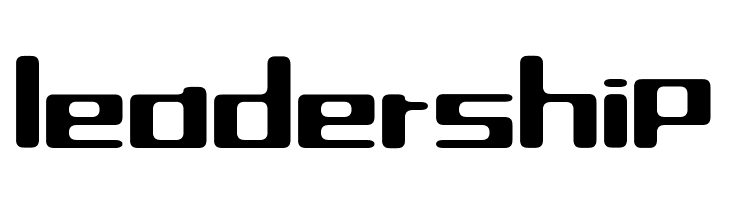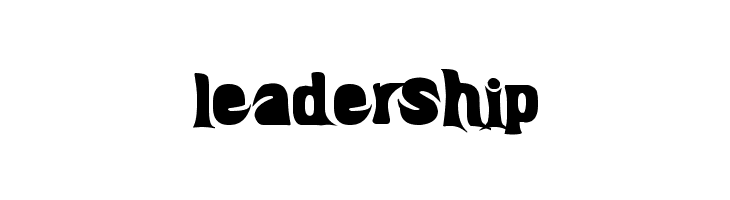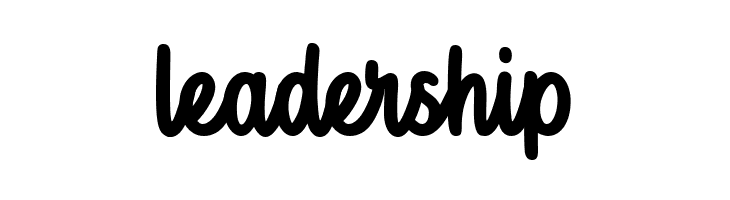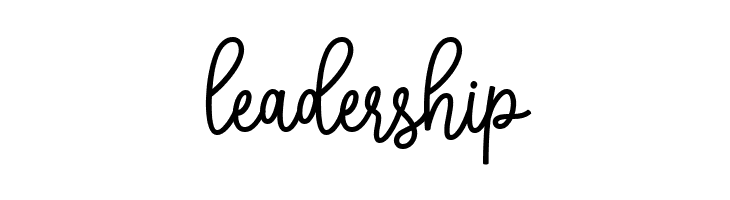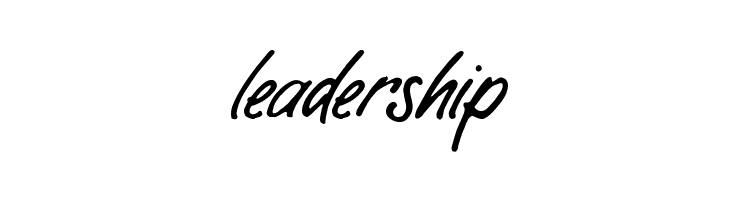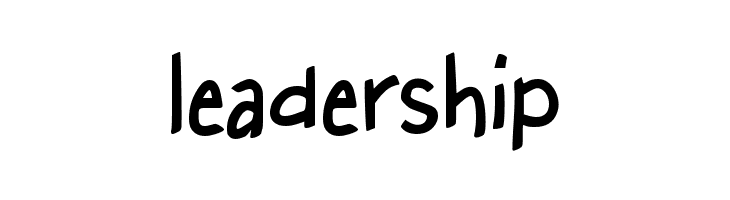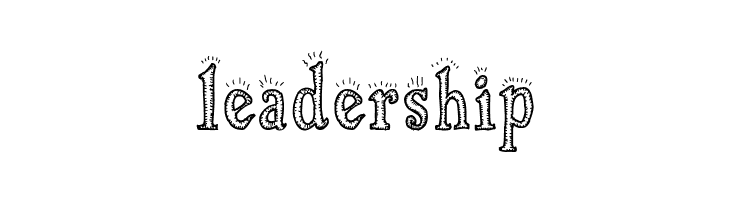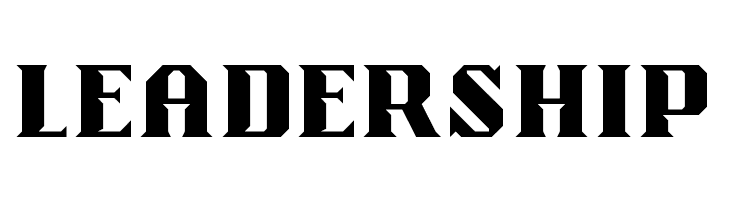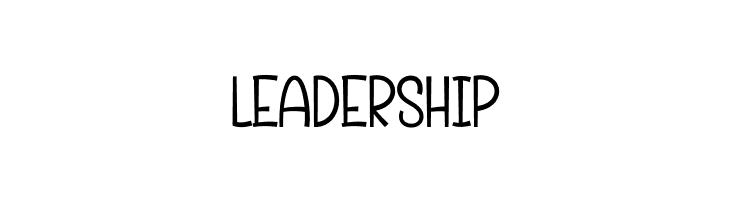
A sophisticated script font with elegant, flowing strokes and a personal touch.
An elegant script font with fluid, cursive strokes and sophisticated flourishes.
A dynamic, expressive handwritten font with fluid, organic strokes.
A whimsical decorative font with bird-like characters, ideal for playful projects.
A dynamic script font with flowing, cursive letterforms and dramatic flourishes.
A playful, bold script font with a handwritten style.
A bold, geometric font with a modern and impactful design.
Playful handwritten sans-serif with tall, narrow letters and casual feel.
A playful and whimsical script font with a lively, cursive style.
A playful, rounded font with a friendly and approachable style.
A playful, handwritten script font with a modern and whimsical style.
A playful handwritten font with a casual and friendly style.
An elegant, cursive script font with ornate swashes and a handwritten feel.
A festive dingbat font with birthday and party-themed illustrations.
An elegant, flowing script font with intricate loops and swashes.
A graceful cursive font with elegant, sweeping strokes and decorative flourishes.
A bold, dynamic font with sharp edges and a vintage-modern style.
A bold, blackletter-inspired font with ornate detailing.
A playful, hand-drawn font with a casual and whimsical style.
A bold, expressive script font with flowing, cursive letterforms.
A bold, playful script font with a friendly, handwritten style.
A playful, hand-drawn font with decorative, dotted outlines.
A playful and whimsical script font with fluid, connected strokes.
A bold, geometric font with a modern, futuristic style and uniform stroke width.
A bold, expressive handwritten font with playful curves and thick strokes.
A bold, cursive font with playful and dynamic flow.
A bold, angular font with a modern and edgy design.
A dynamic and fluid script font with elegant, flowing curves.
A playful, handwritten font with rounded, consistent strokes.
A bold, angular font with a geometric and authoritative style.
A decorative font with modern and traditional elements, featuring ornamental details.
A playful and elegant script font with interconnected, flowing characters.
An elegant and sophisticated cursive font with fluid, connected letters.